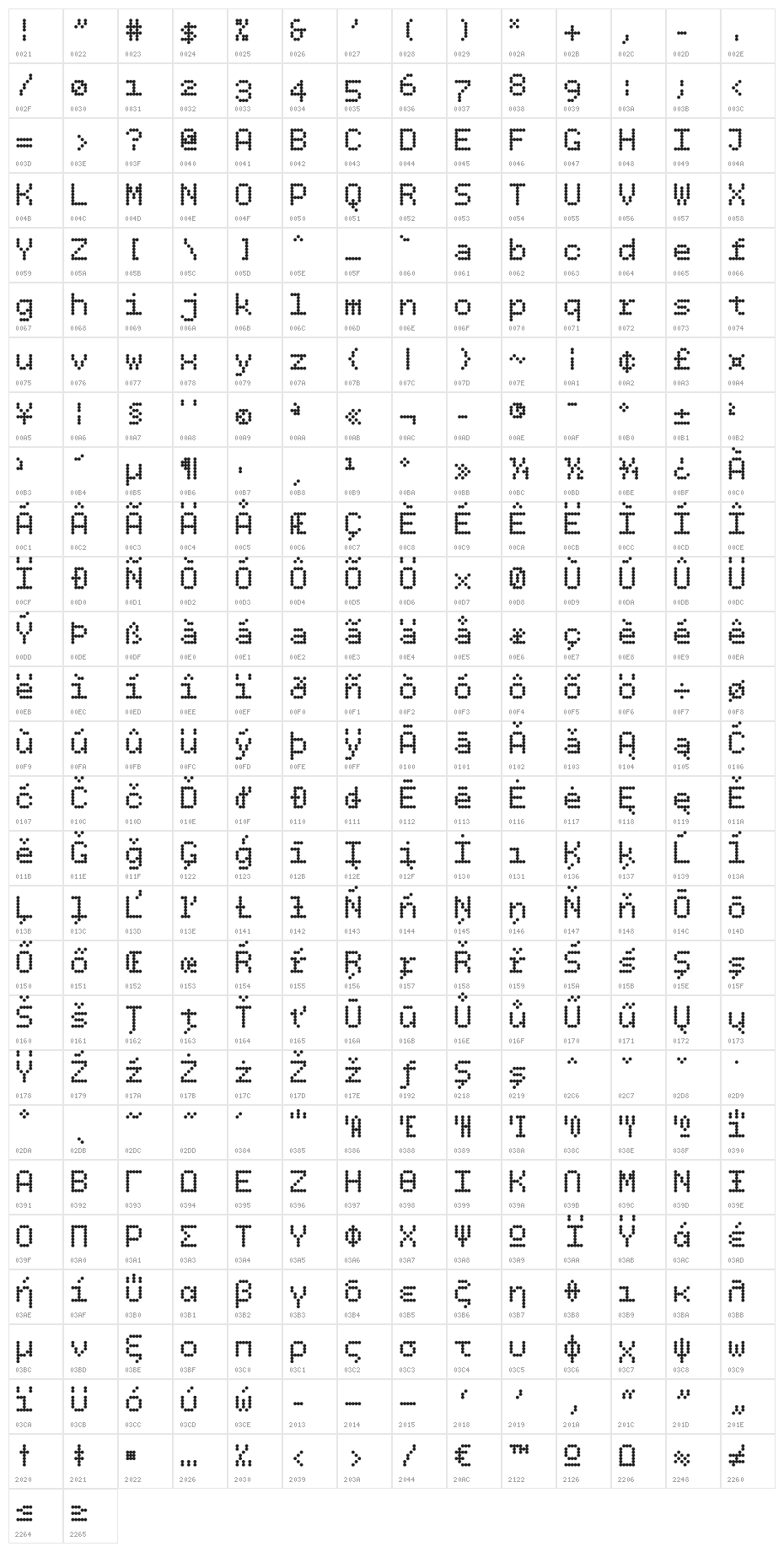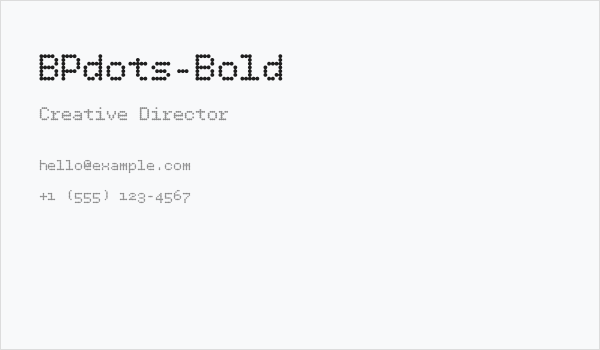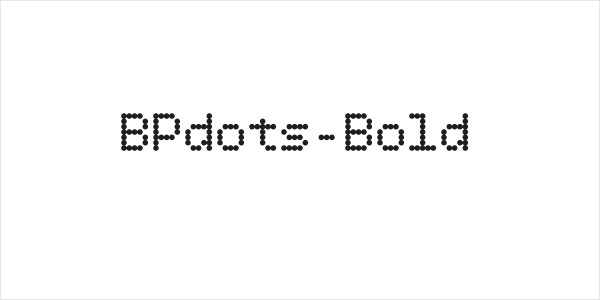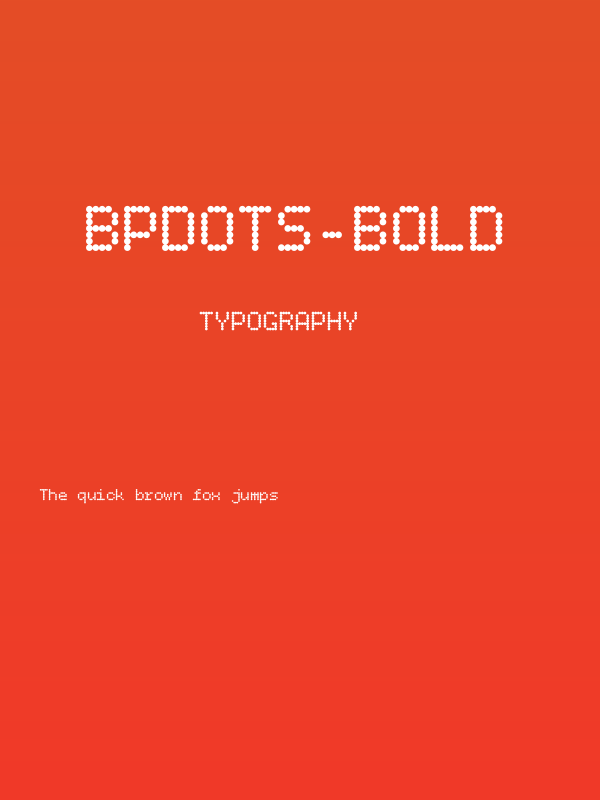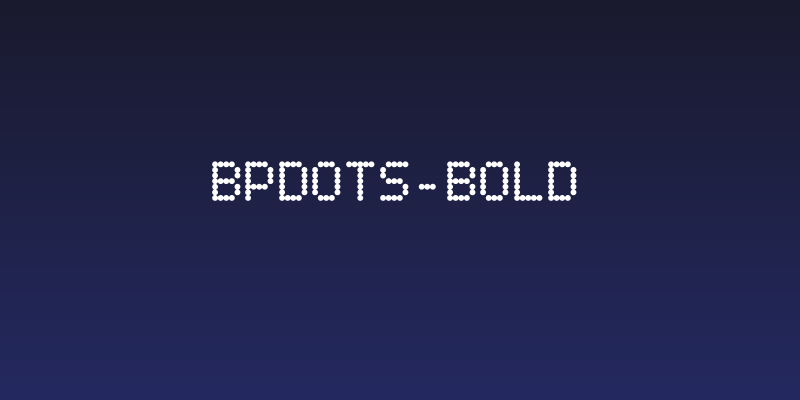
BPdots-Bold Font
BPdots-Bold Description
This font features a unique dotted design, where each character is composed of a series of evenly spaced dots. The style is bold and geometric, creating a digital or pixelated effect that is both modern and playful. The uppercase and lowercase letters maintain a consistent dot pattern, ensuring readability while adding a distinctive visual texture. Numbers and special characters follow the same dotted structure, making the font versatile for various applications. The overall appearance is clean yet striking, suitable for creative and tech-oriented projects.
| Use Case | Headlines, Logos, Digital displays |
| Proposed Projects | Ideal for digital art, tech branding, video game design, and modern advertising. |